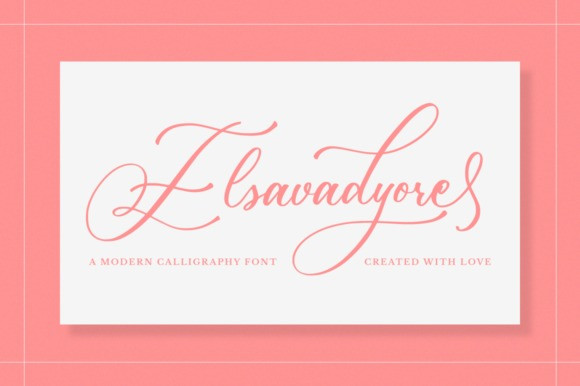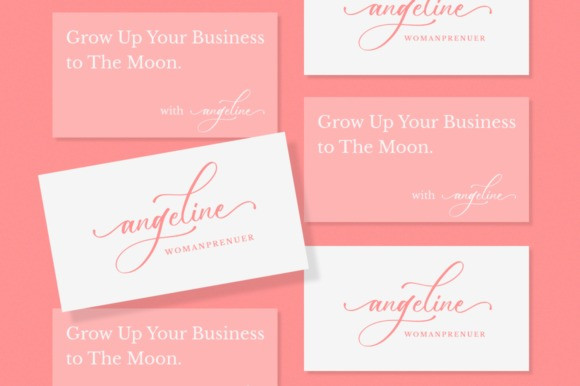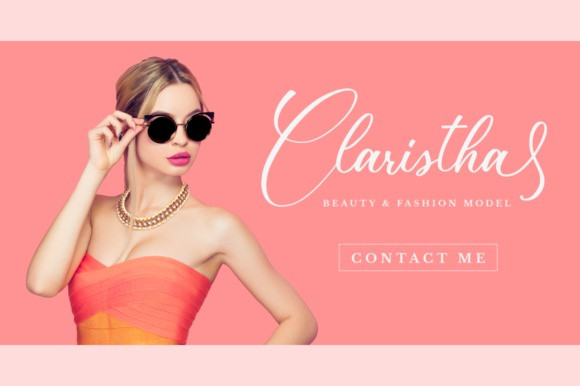
Elsavadyore Font
Elsavadyore is a lovely and delicate script font that exudes elegance and class. It is perfect for those who need a beautiful and refreshing look to their designs. Elsavadyore is PUA encoded which means you can access all of the amazing glyphs and ligatures with ease!